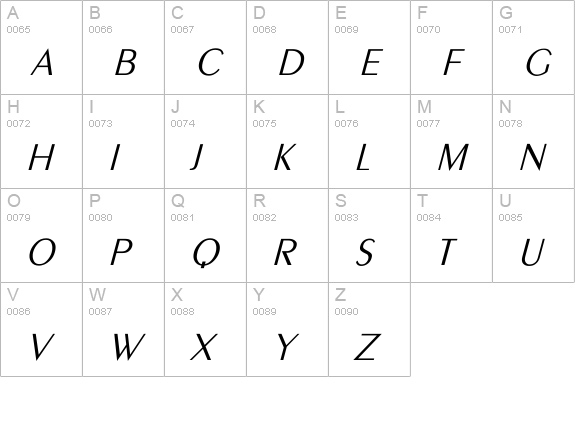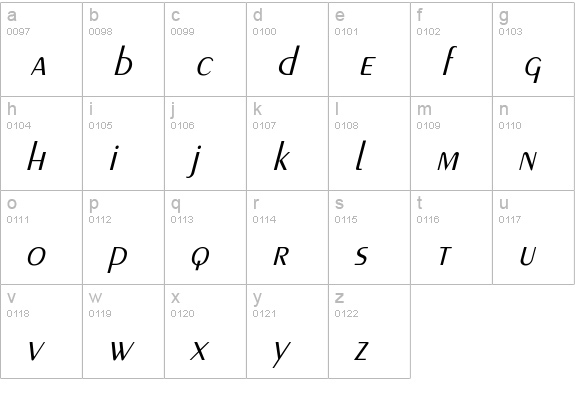
Larwell-Light Italic Font Details
Larwell-Light Italic is a refined, elegant, italic variant in the Larwell typeface family \xE2\x80\x94 well suited to elegant body text, refined sub-headings, and luxury branding.
Larwell-Light Italic font is a stylish and elegant typeface that exudes sophistication and charm. Its sleek and slender letterforms add a touch of grace to any design project, making it perfect for logos, headlines, and body text alike. The delicate curves and subtle slant of Larwell-Light Italic create a sense of movement and fluidity, giving your words a dynamic and captivating appearance. With its clean and legible design, Larwell-Light Italic font ensures optimum readability even at smaller sizes, making it an excellent choice for both print and digital media. Whether you're designing a magazine spread, a website, or a greeting card, this font will effortlessly enhance the overall aesthetic and professionalism of your work. One of the most appealing aspects of Larwell-Light Italic font is that it is freely available to download at FontsMarket.com. This means that you can access this exceptional font without any cost, allowing you to elevate your designs without breaking the bank. FontsMarket.com provides a user-friendly platform where you can easily find and download Larwell-Light Italic font, making it convenient and accessible for designers of all levels. So, if you're in search of a font that combines elegance, versatility, and affordability, look no further than Larwell-Light Italic. Download it today from FontsMarket.com and bring a touch of class to your next project.